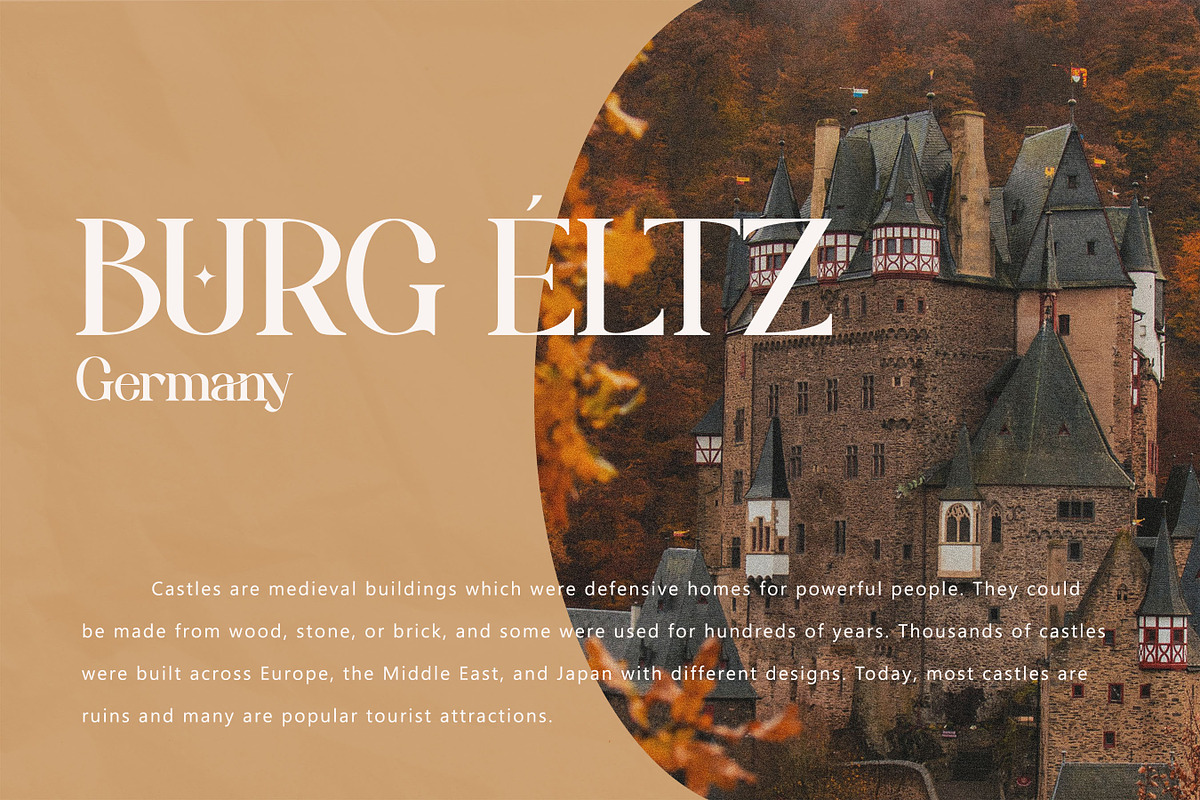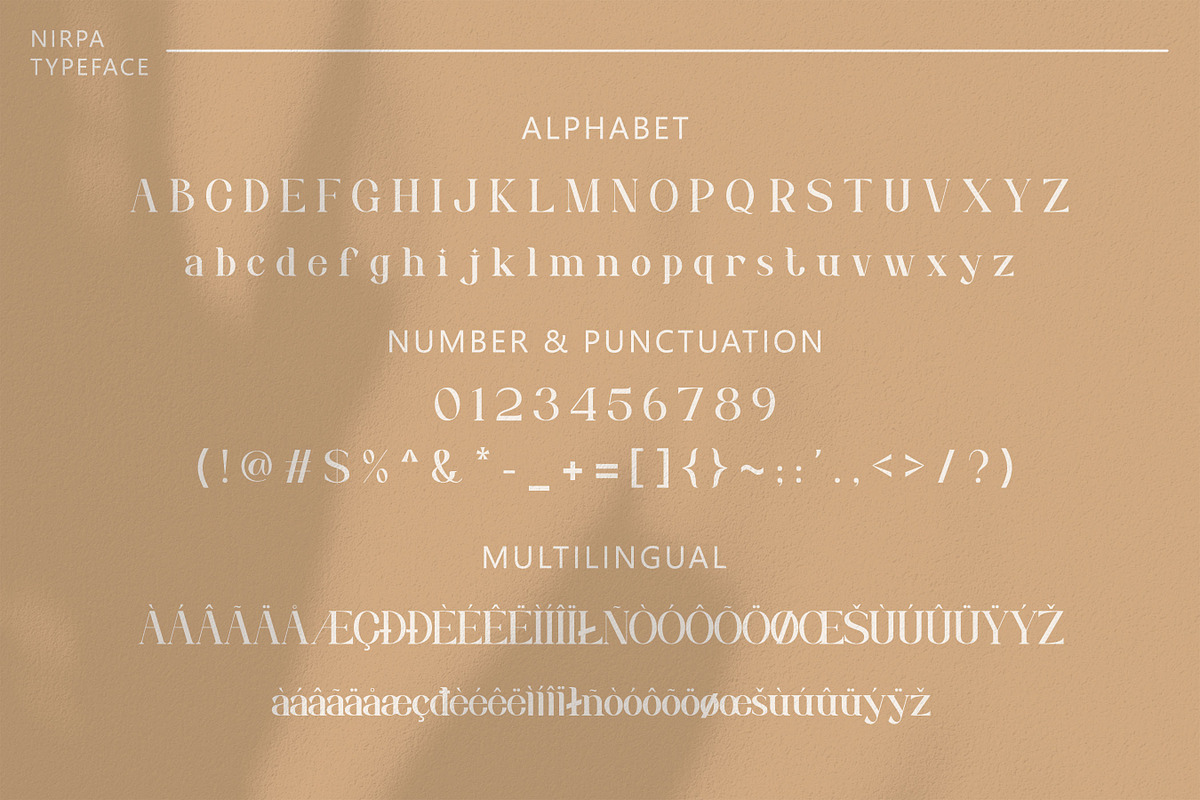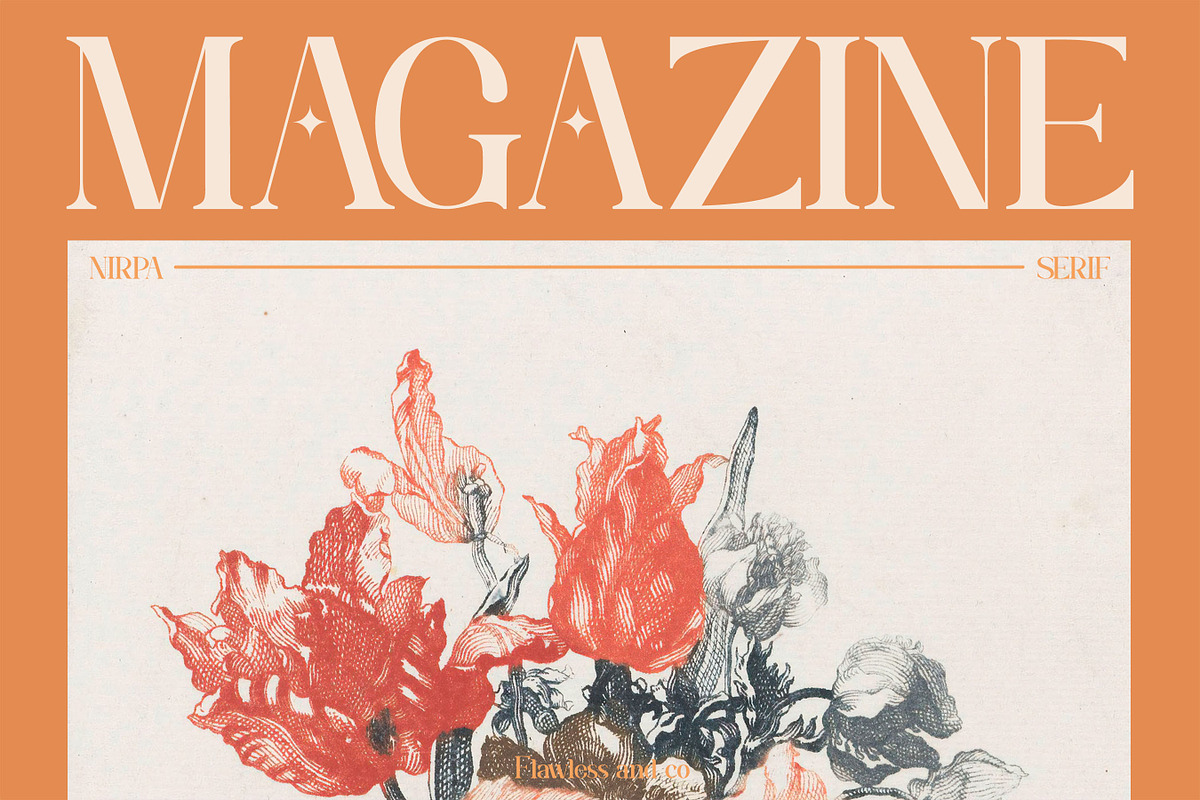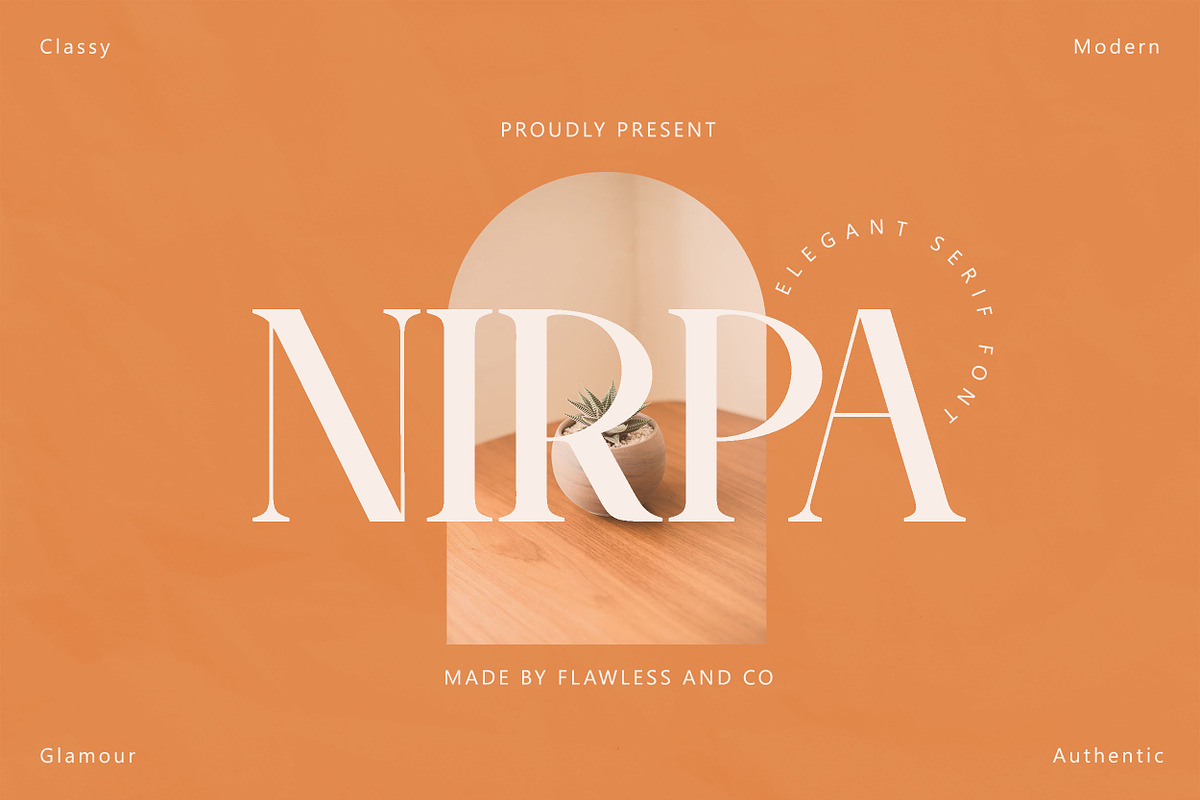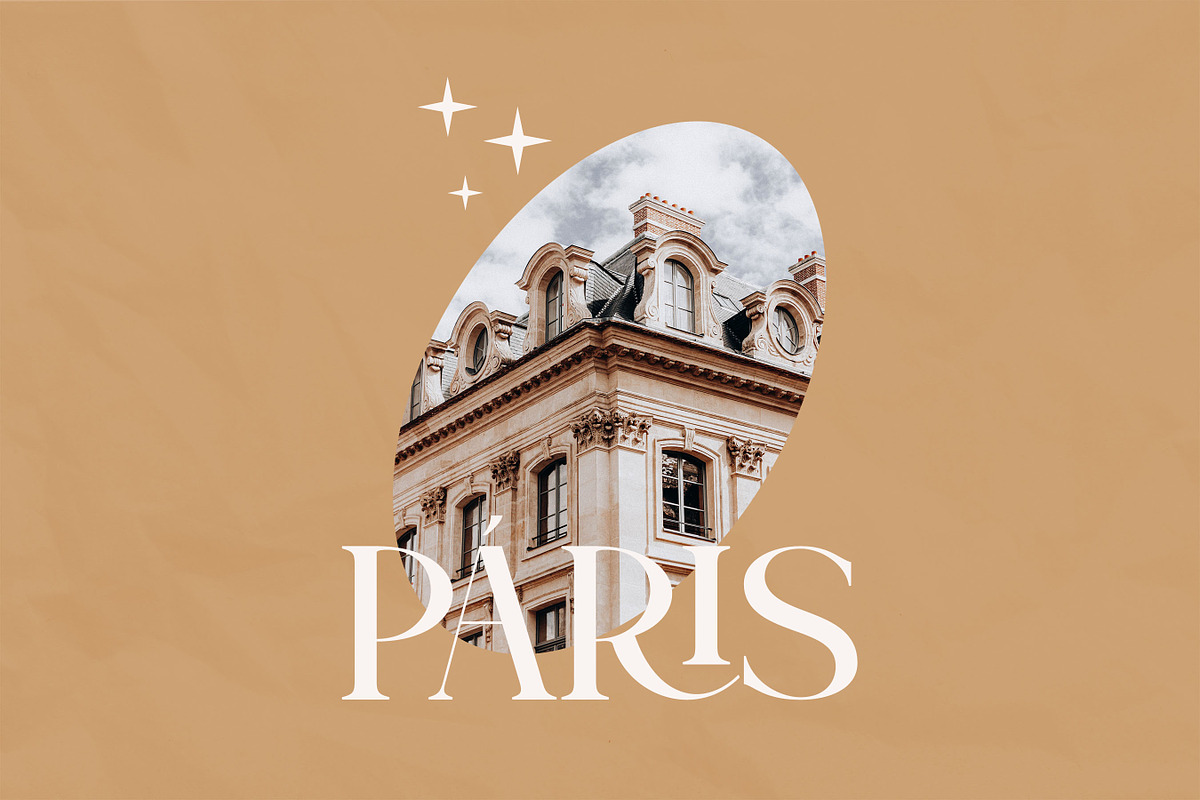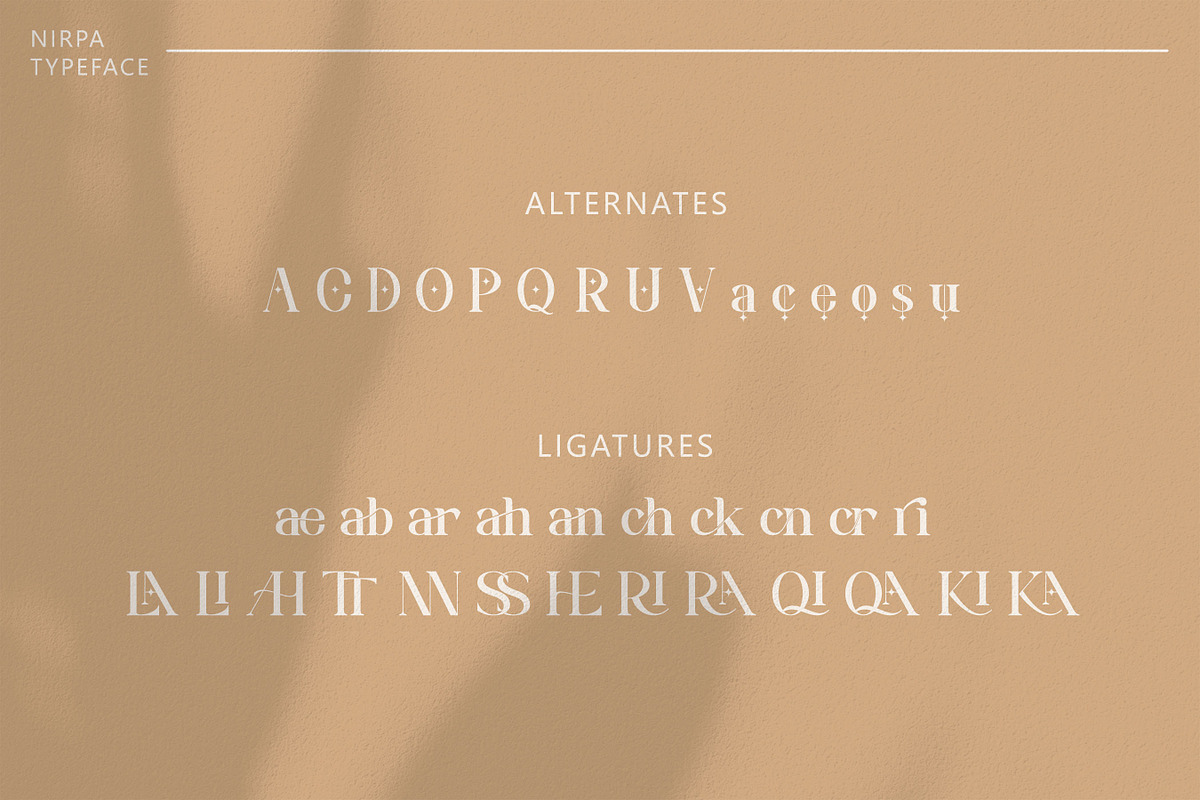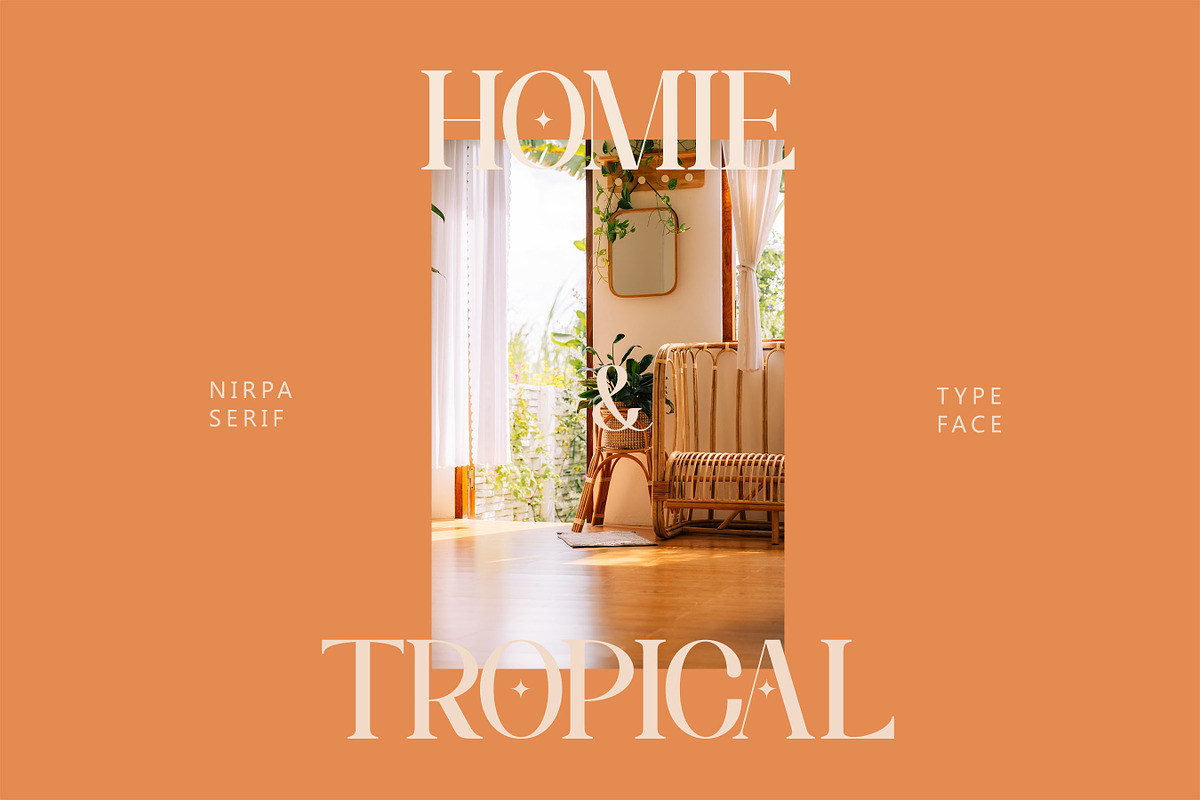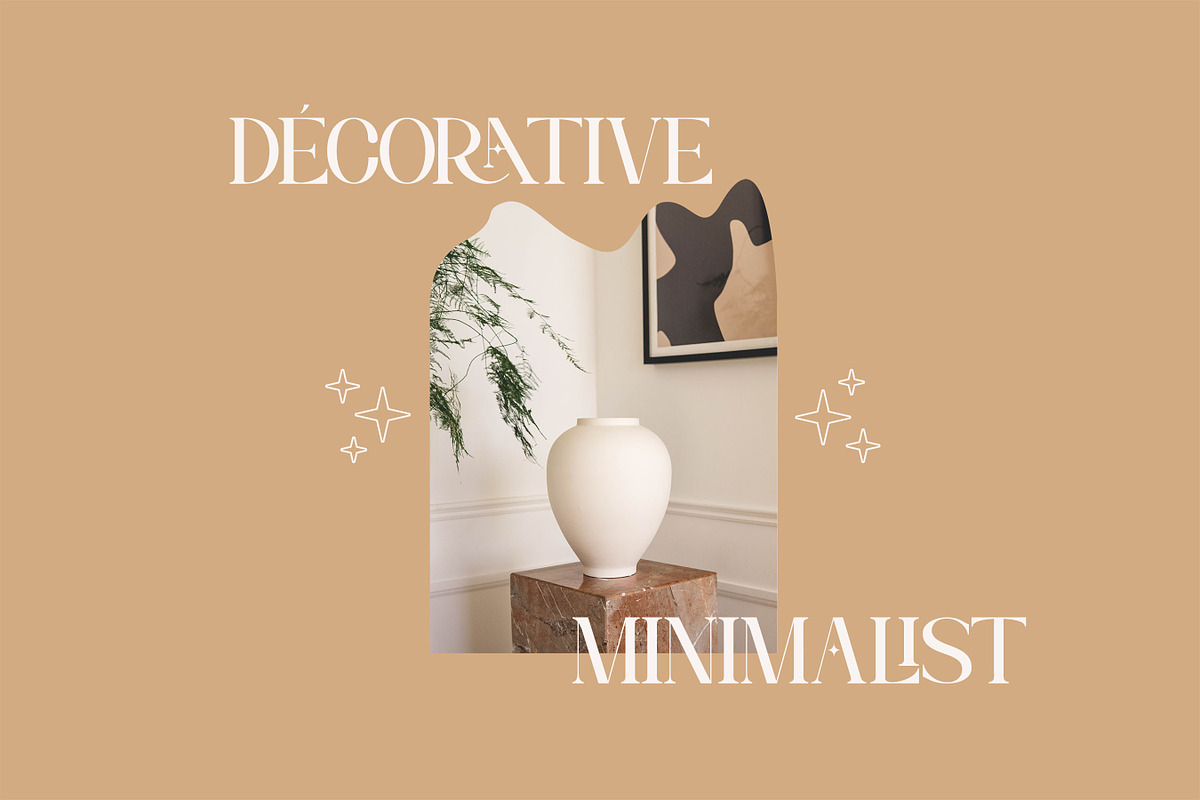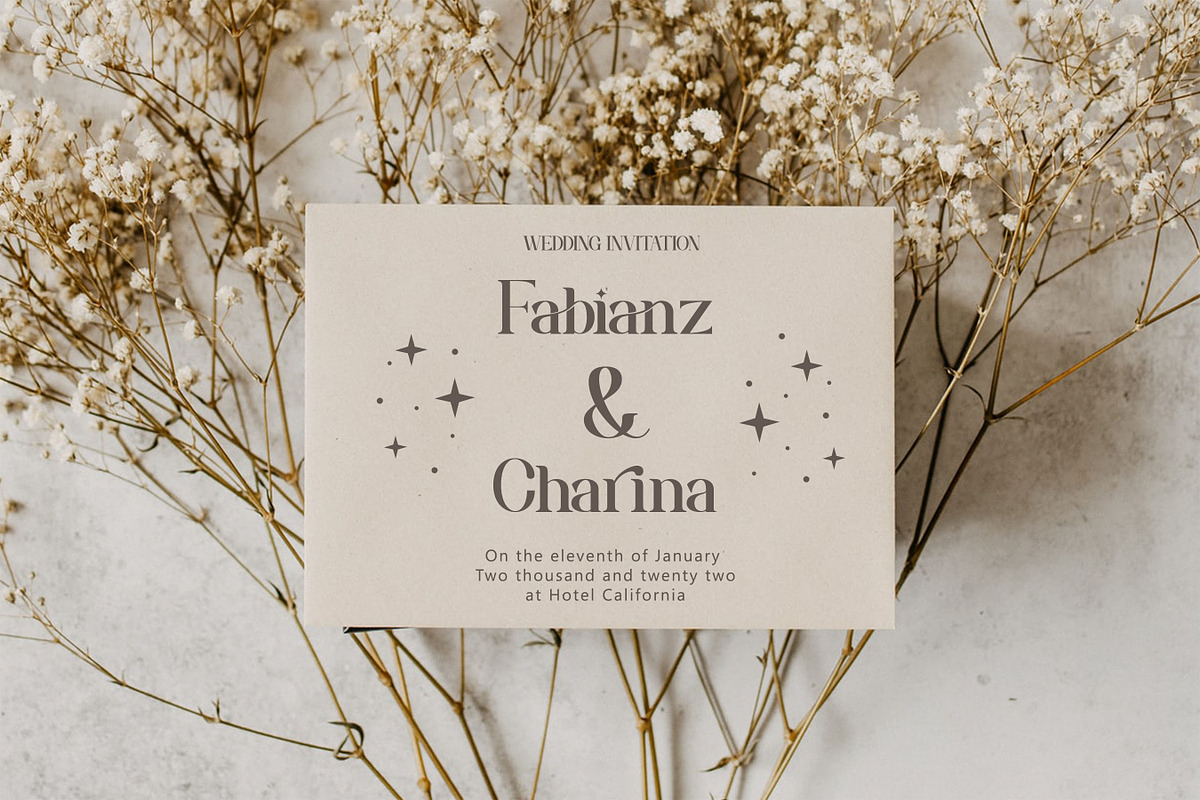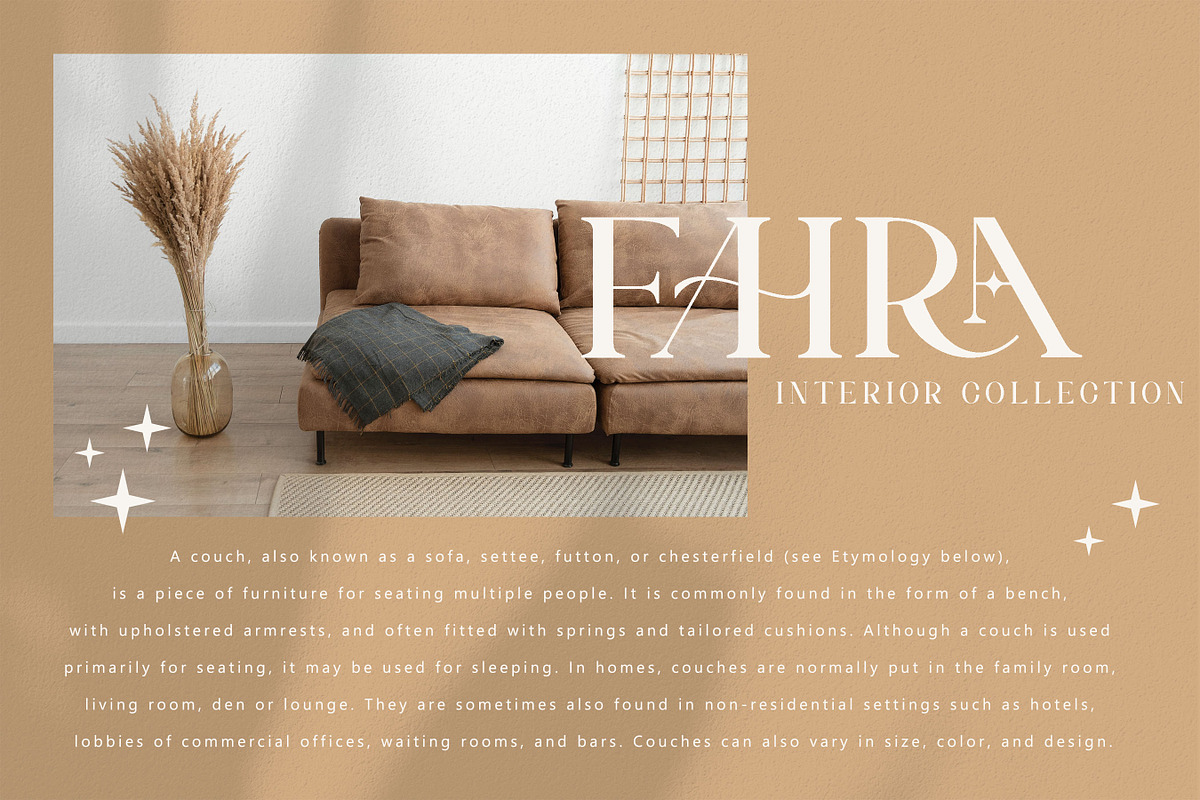
Nirpa - Elegant Serif
our latest creation, modern serif with multilingual support, an updated blend of bohemian style, suitable for branding, business, logos, magazines, and others
Multilingual Uppercase alphabet A-Z Lowercase alphabet a-z Alternate Character Numbers 0-9 Some punctuation